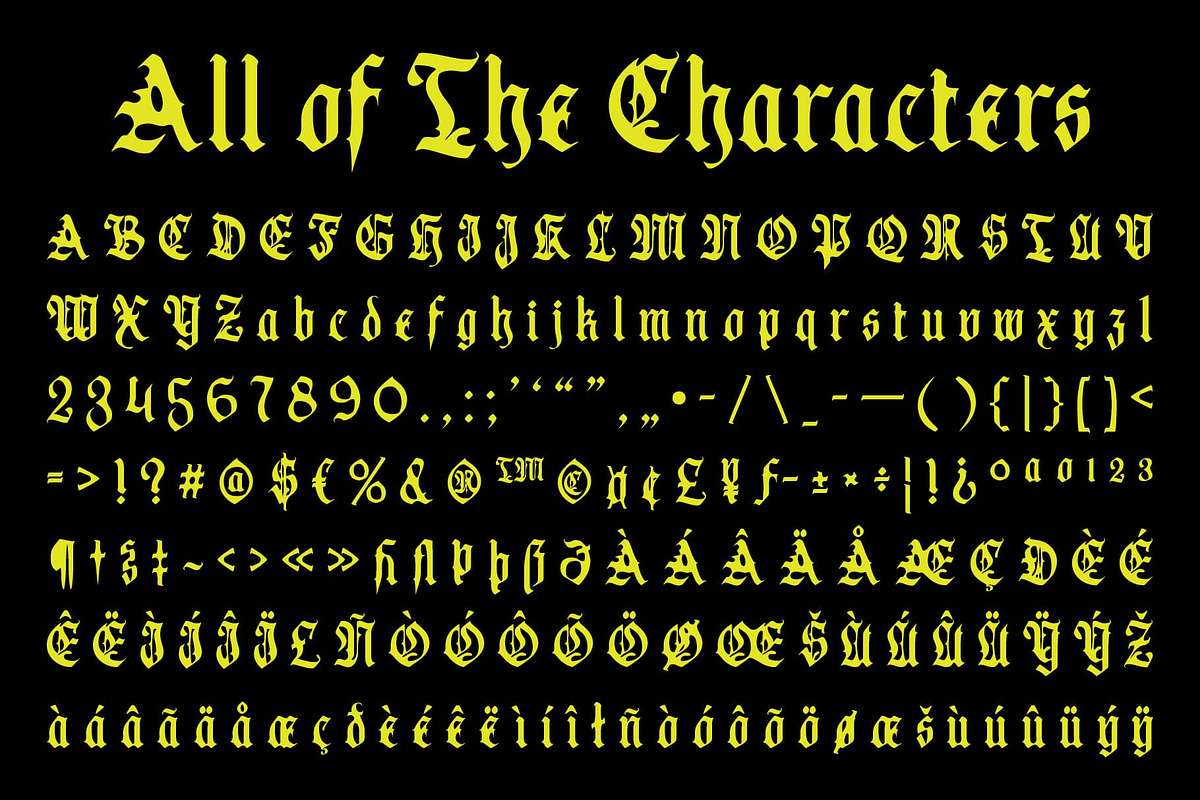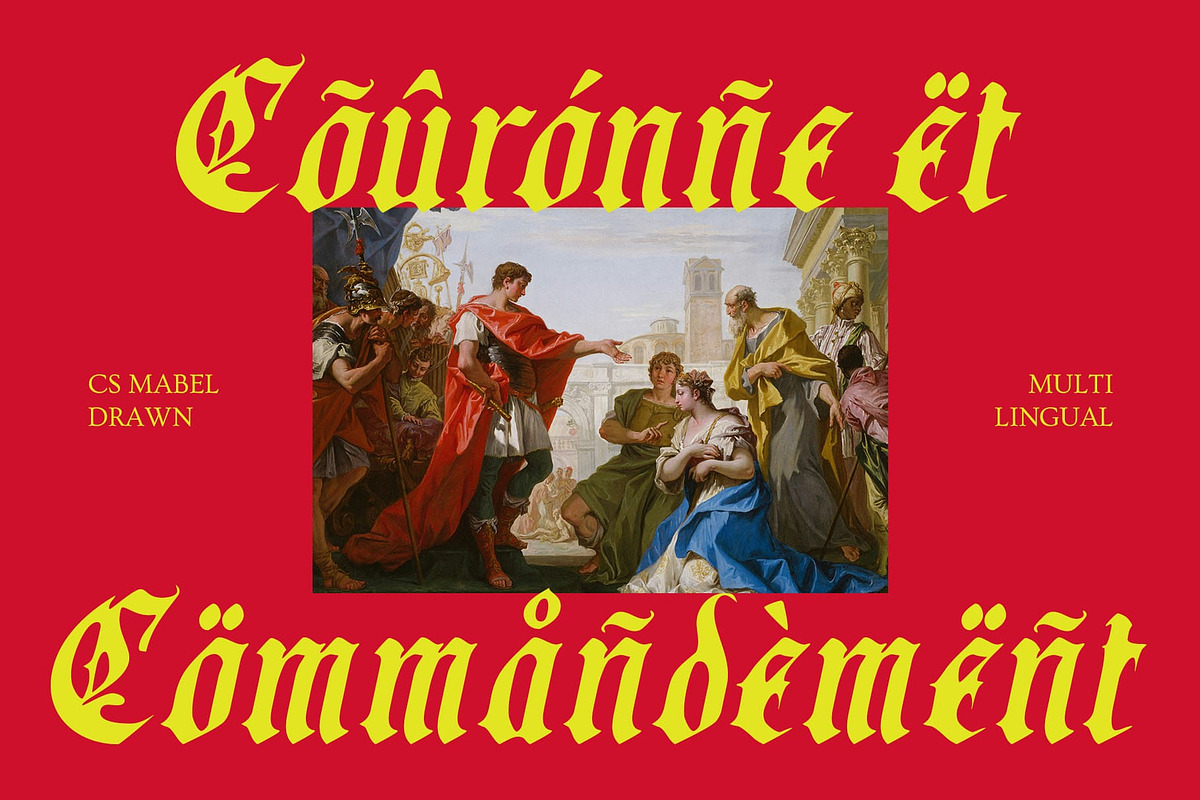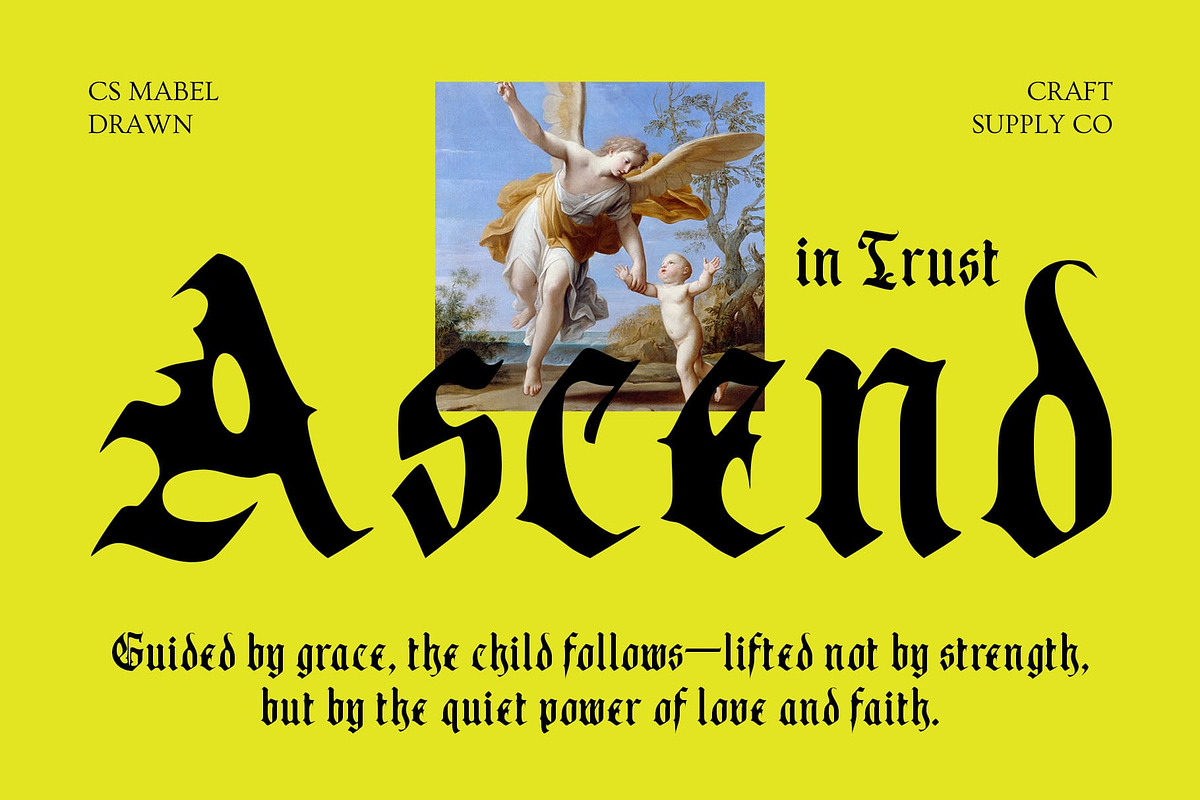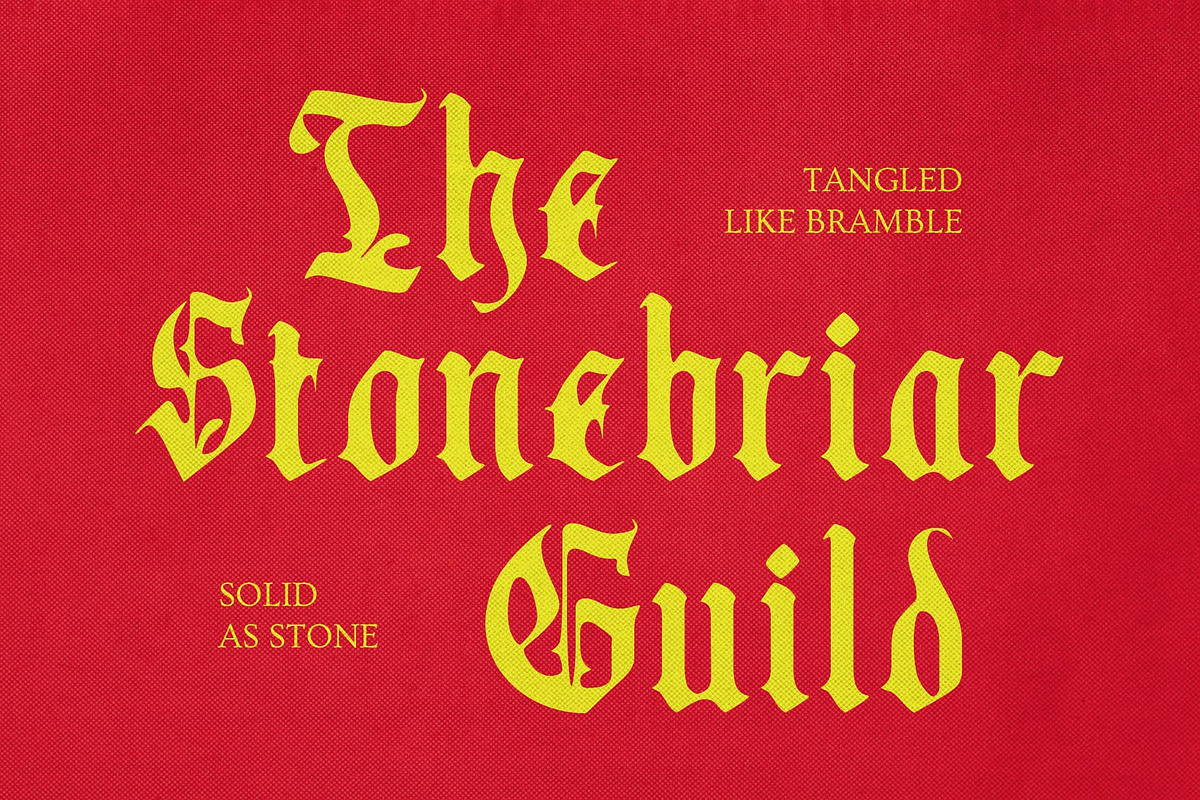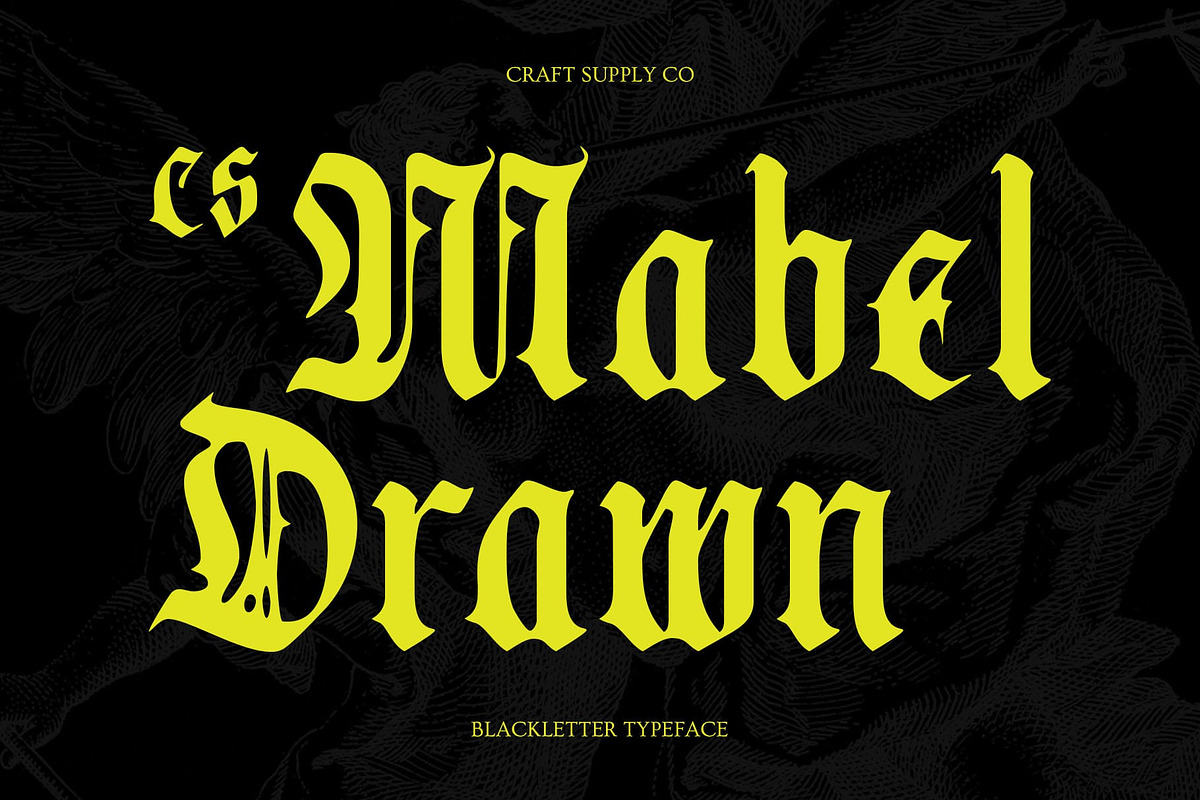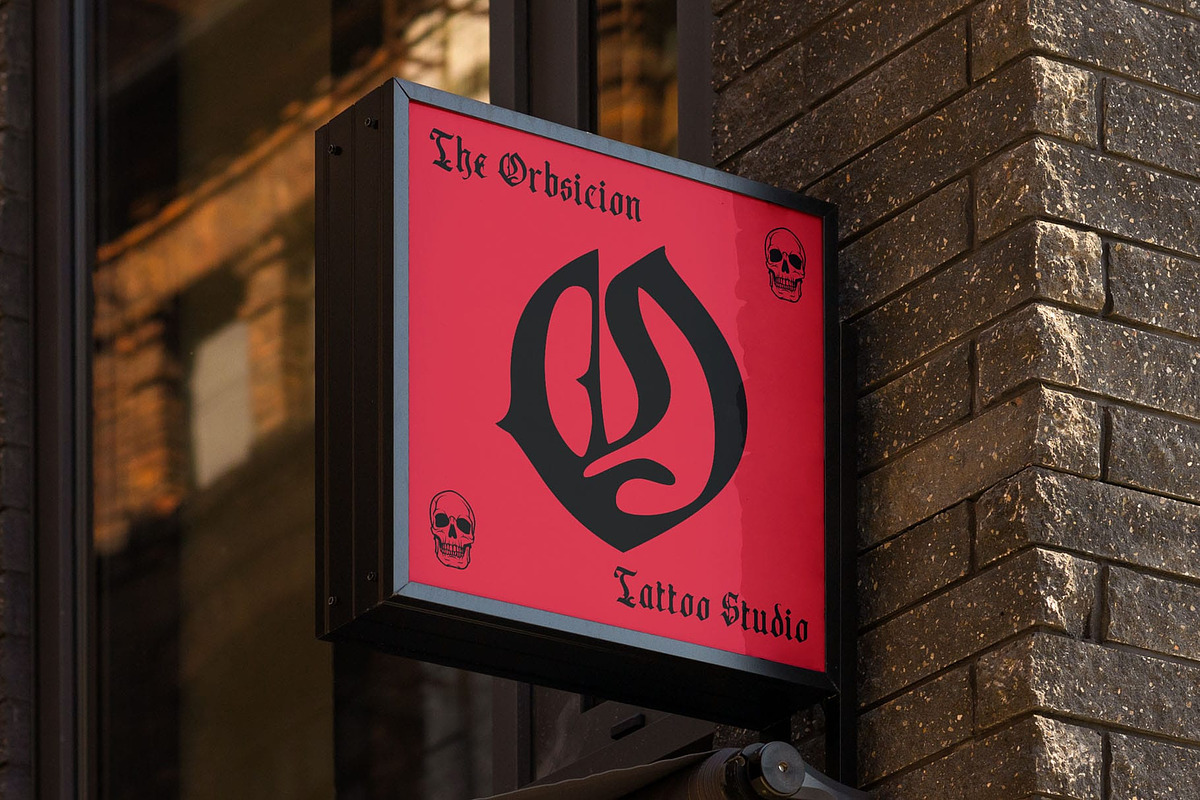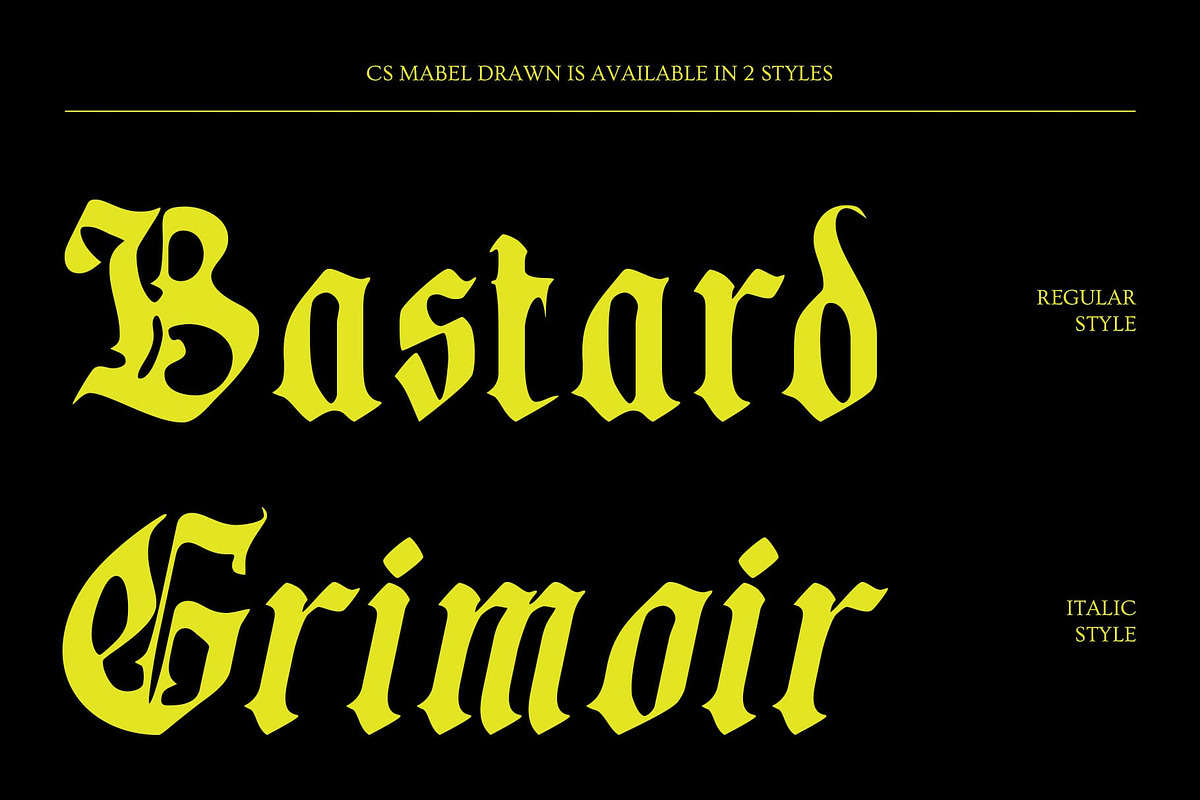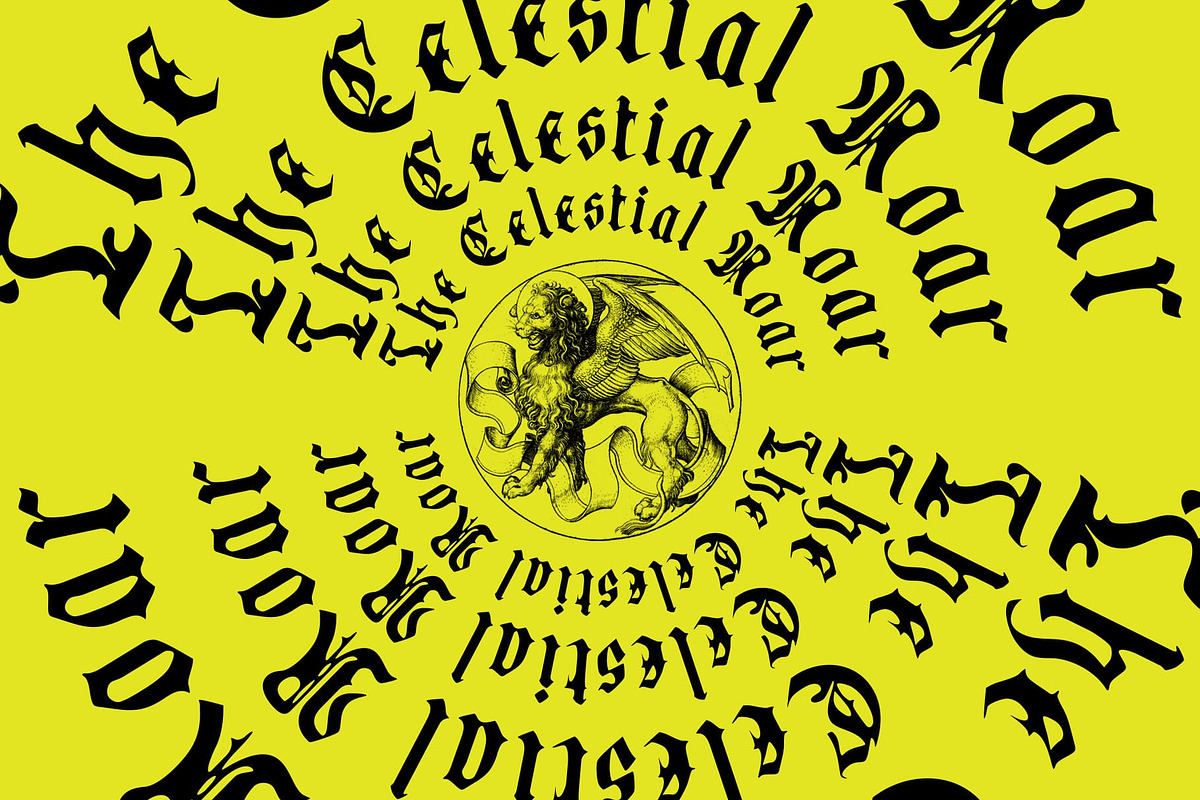
CS Mabel Drawn
CS Mabel Drawn – Bold Blackletter with Artistic Edge
Striking and Expressive Design CS Mabel Drawn is a modern display font that reimagines the traditional blackletter style with a contemporary, hand-drawn effect. Its sharp, angular letterforms are infused with expressive strokes, resulting in a typeface that feels raw, artistic, and full of character.
Bold and Alternative Vibe The font’s dramatic presence makes it stand out in any design. Each letter carries a handcrafted energy that blends historic influence with modern creativity, making it ideal for projects that want to feel edgy, rebellious, or unconventional.
Perfect for Creative Projects From music posters and album covers to logos, streetwear branding, and experimental graphics, this mystical and gothic font delivers a striking typographic statement. Its unique style ensures that your work carries a bold identity while keeping a fresh, alternative modern appeal.
Classic Meets Contemporary By combining the intricate charm of blackletter with the freedom of hand-drawn artistry, this dramatic and expressive font bridges tradition and innovation. It’s a display font that’s not only visually powerful but also versatile for designers looking to push creative boundaries.
A Typeface with Modern Drama By combining the heritage of blackletter with a hand-drawn aesthetic, this edgy and rebellious font achieves a balance of tradition and innovation. It radiates confidence, artistry, and individuality—perfect for projects that demand attention.
- CS Mabel Drawn Regular
- CS Mabel Drawn Italic